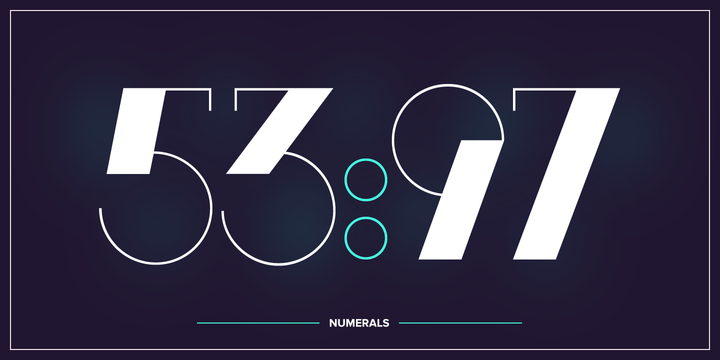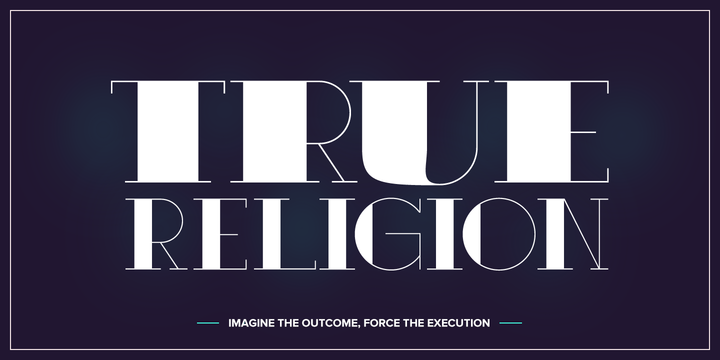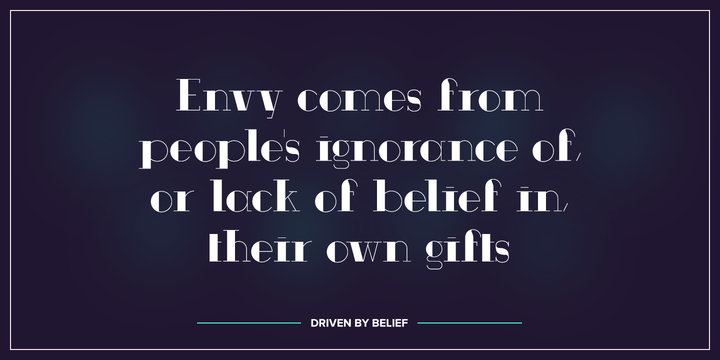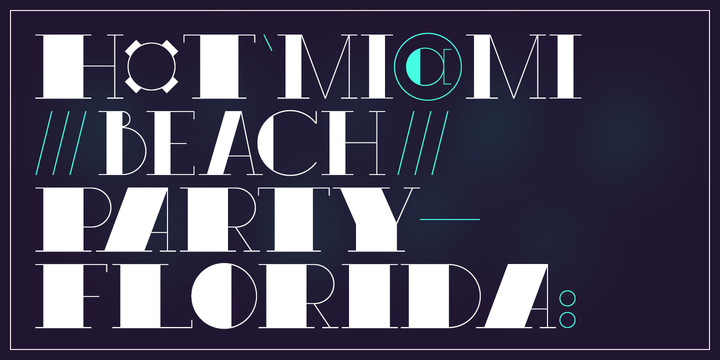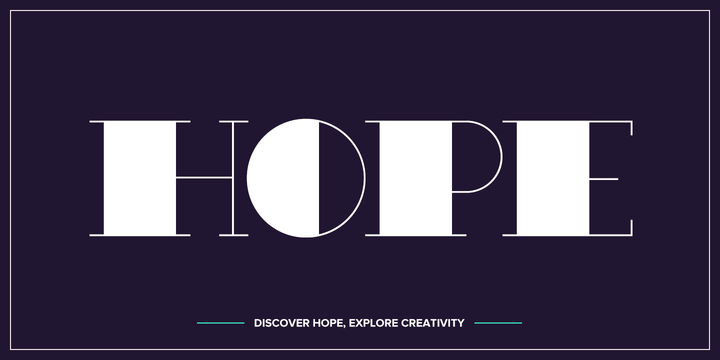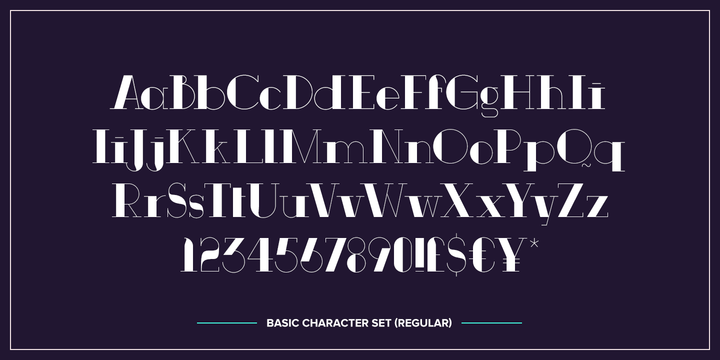
Roxic Font Family
Roxic doesn’t push boundaries, or break them; Roxic doesn’t recognise your pedestrian concept of boundaries. It doesn’t so much laugh in the face of convention as much as it refuses to acknowledge its very existence.
Roxic is a font for the modern day, but without the layers of pretension so often associated with modernism. Elegantly conveying your message with its uniquely delicate sturdiness, Roxic is a font that people haven’t met before, but they can’t help but trust it.
Roxic Regular
Roxic Bold Alternates